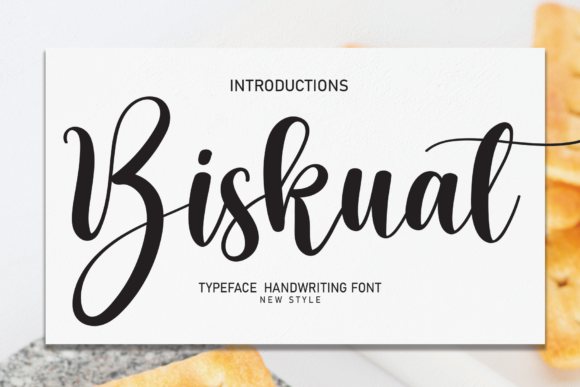
The Magical World of Biskuat Font: Elevate Your Designs with Elegance
I’ll never forget the moment I stumbled upon Biskuat Font while working on a DIY project for a client’s wedding invitation. I had spent hours searching for the perfect script font, but nothing seemed to fit the elegant and whimsical vibe I was going for. That was until I discovered Biskuat – a magical script font that added a touch of sophistication to the entire design. In this article, I’ll share my experience with Biskuat, its features, and how to make the most of it in your designs.
An Honest Review of Biskuat Font
Biskuat Font has quickly become one of my go-to fonts for creative projects. Here’s what I love about it:
- ✨ Elegant and sophisticated feel, perfect for high-end designs
- ✅ Highly versatile, suitable for various design projects, from Instagram posts to calligraphy scripts
- 💫 Beautifully crafted with attention to detail, making it a true piece of art
While Biskuat is an excellent font, it’s not without its quirks. Here are a few things to keep in mind:
- ⚠️ Limited availability of certain glyphs, which may limit its use in specific design projects
The Story Behind Biskuat Font
Biskuat Font was created by a team of designers who wanted to craft a font that would add a touch of elegance and sophistication to any design project. Inspired by traditional calligraphy and modern typography, Biskuat is a unique blend of classic and contemporary styles. The font’s creator aimed to design a font that would be both beautiful and versatile, making it suitable for a wide range of design applications.
| What is Biskuat Font? | Biskuat Font is a magical script font carefully created with a touch of elegance, perfect for designs that require sophistication and whimsy. |
| Can I use Biskuat Font for my Instagram posts? | Absolutely! Biskuat Font is perfect for Instagram posts, and its elegant feel will add a touch of sophistication to your feed. |
| Does Biskuat Font support OpenType features? | Yes, Biskuat Font supports OpenType features, including stylistic alternates, glyphs, and ligatures, making it a versatile font for various design applications. |